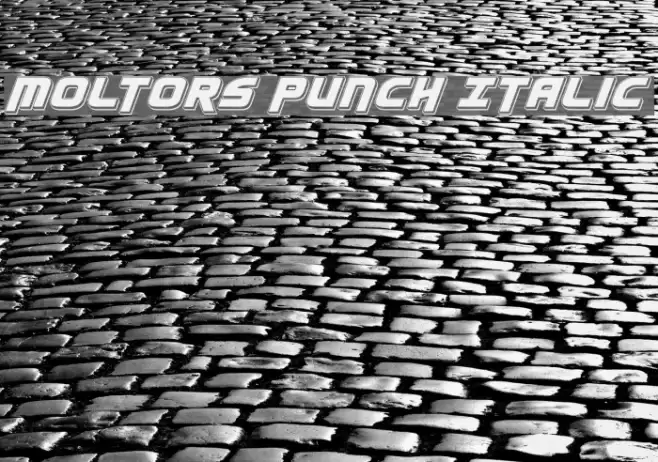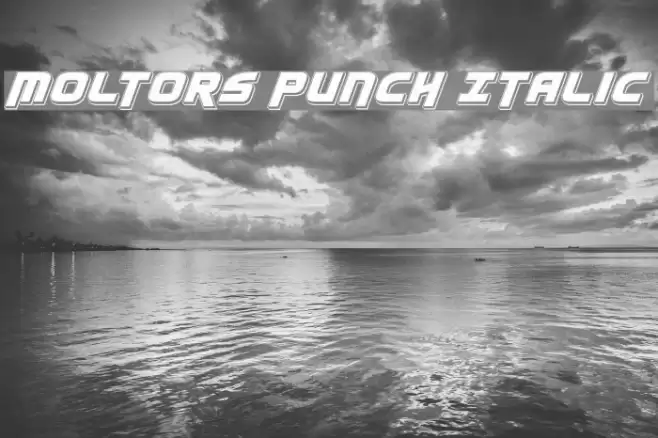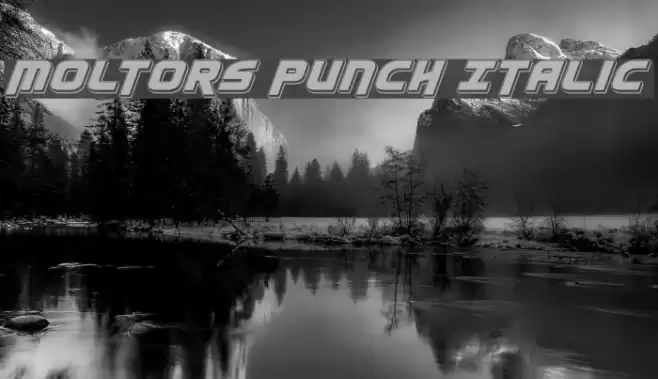
Moltors Punch Italic Font
Moltors Punch Italic Description
This font features a bold, dynamic style with a strong 3D effect, giving it a sense of depth and movement. The letters are italicized, adding a forward-leaning energy that suggests speed and modernity. The strokes are thick and consistent, with a high contrast between the solid black and the white inline, creating a striking visual impact. The characters are well-spaced, ensuring readability while maintaining a compact appearance. This font is ideal for projects that require a futuristic or sporty aesthetic, making it perfect for headlines, posters, and branding that aims to capture attention and convey a sense of action.
A bold, italicized font with a 3D effect, perfect for dynamic and modern designs from Uncategorized fonts.
- Proposed Projects: Ideal for sports branding, futuristic posters, dynamic headlines, and eye-catching logos.